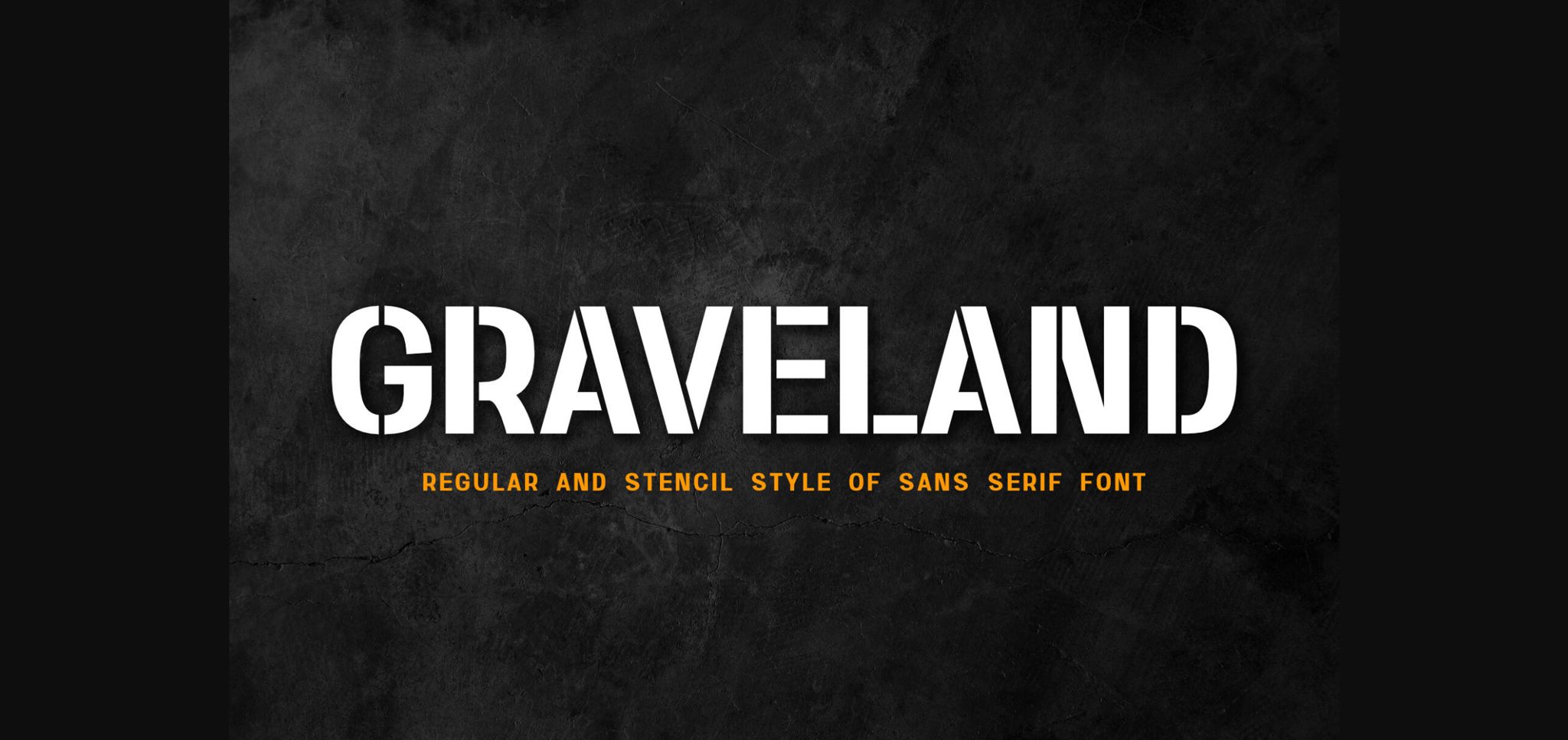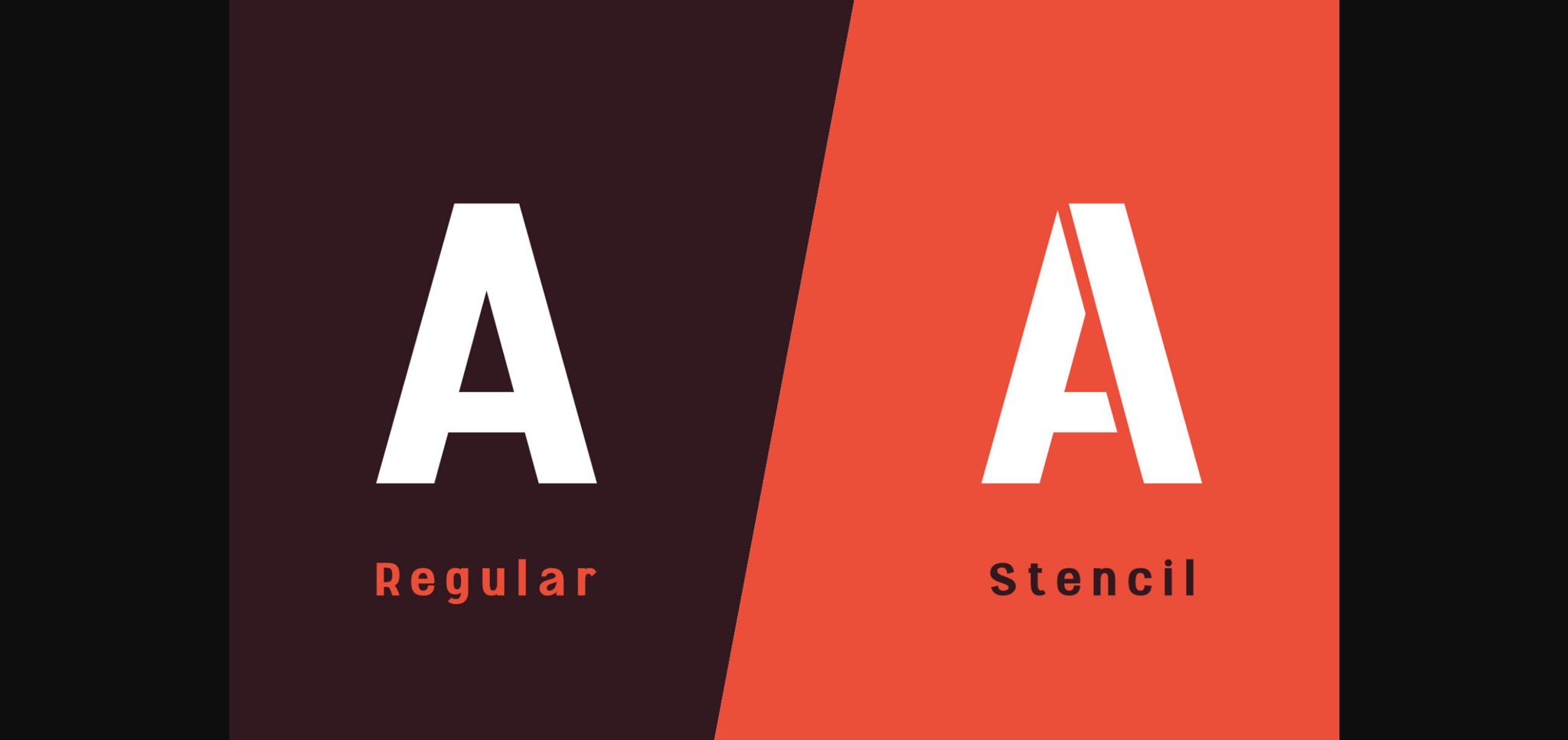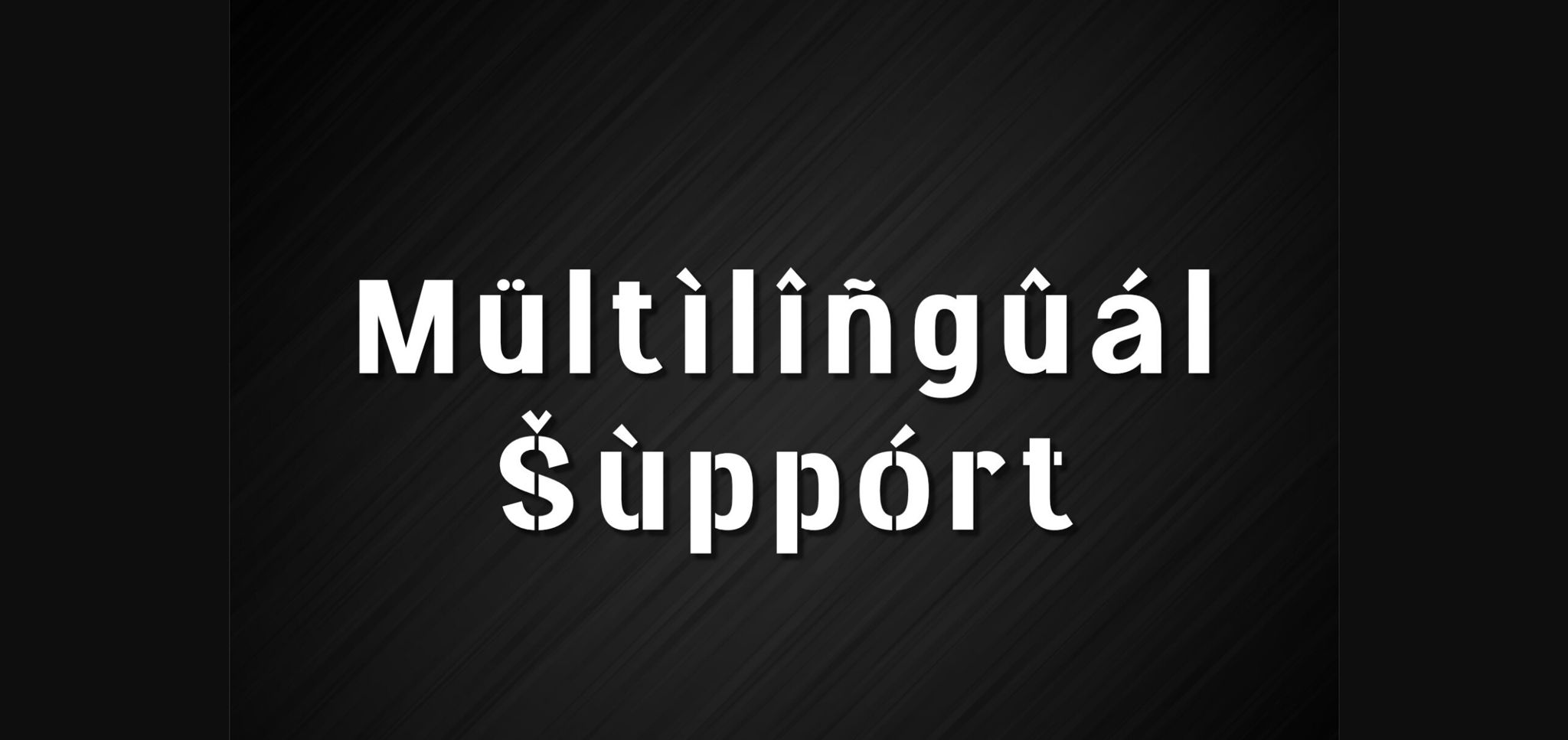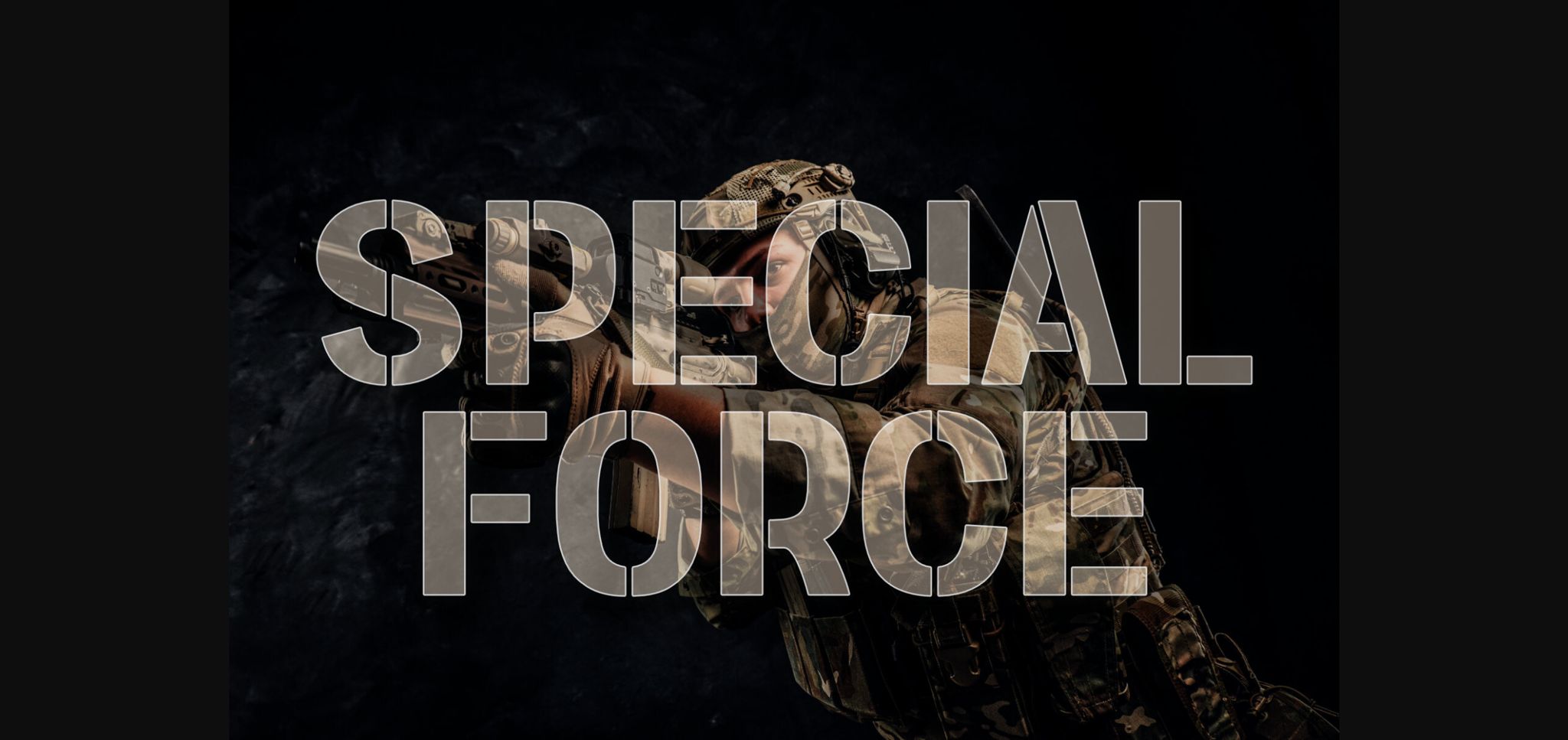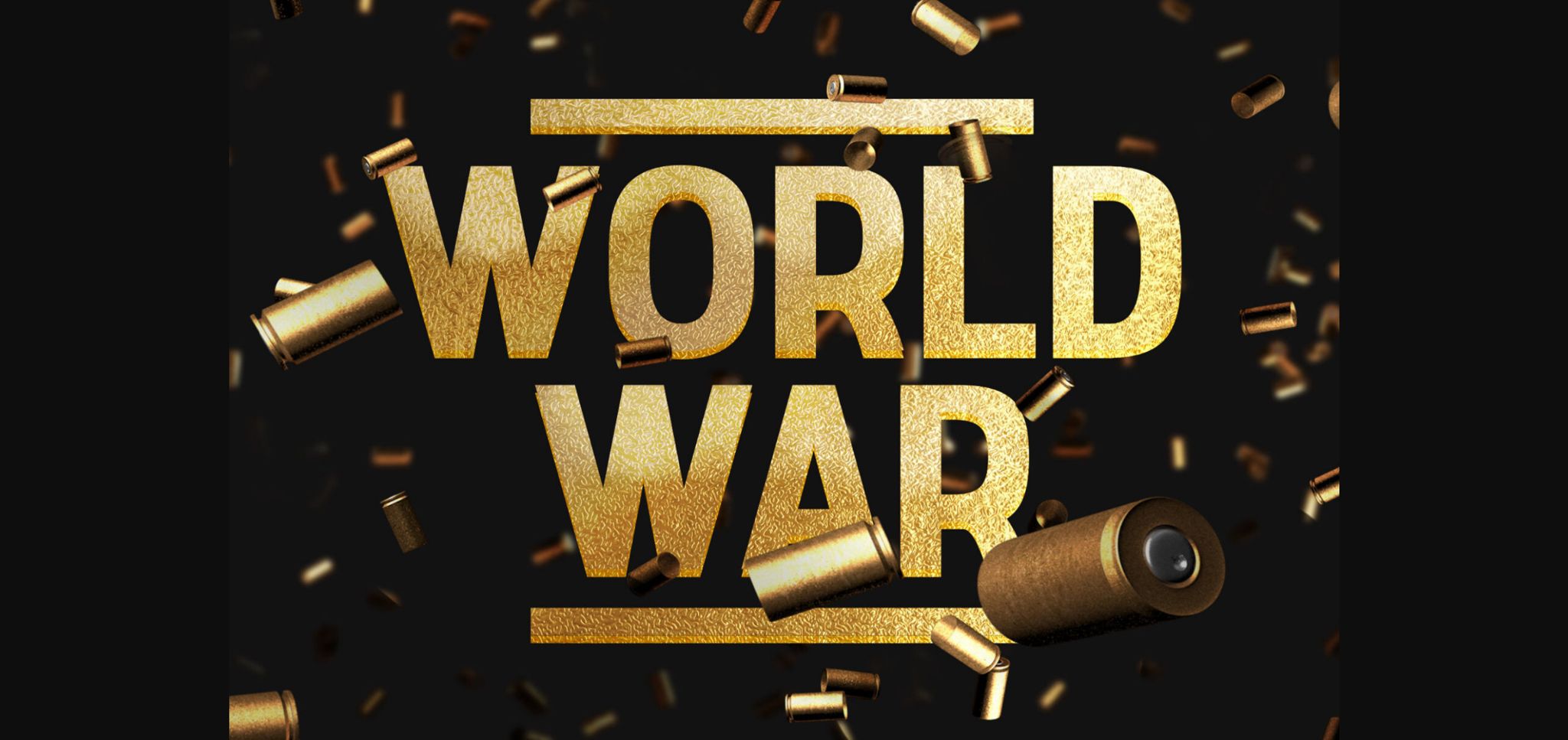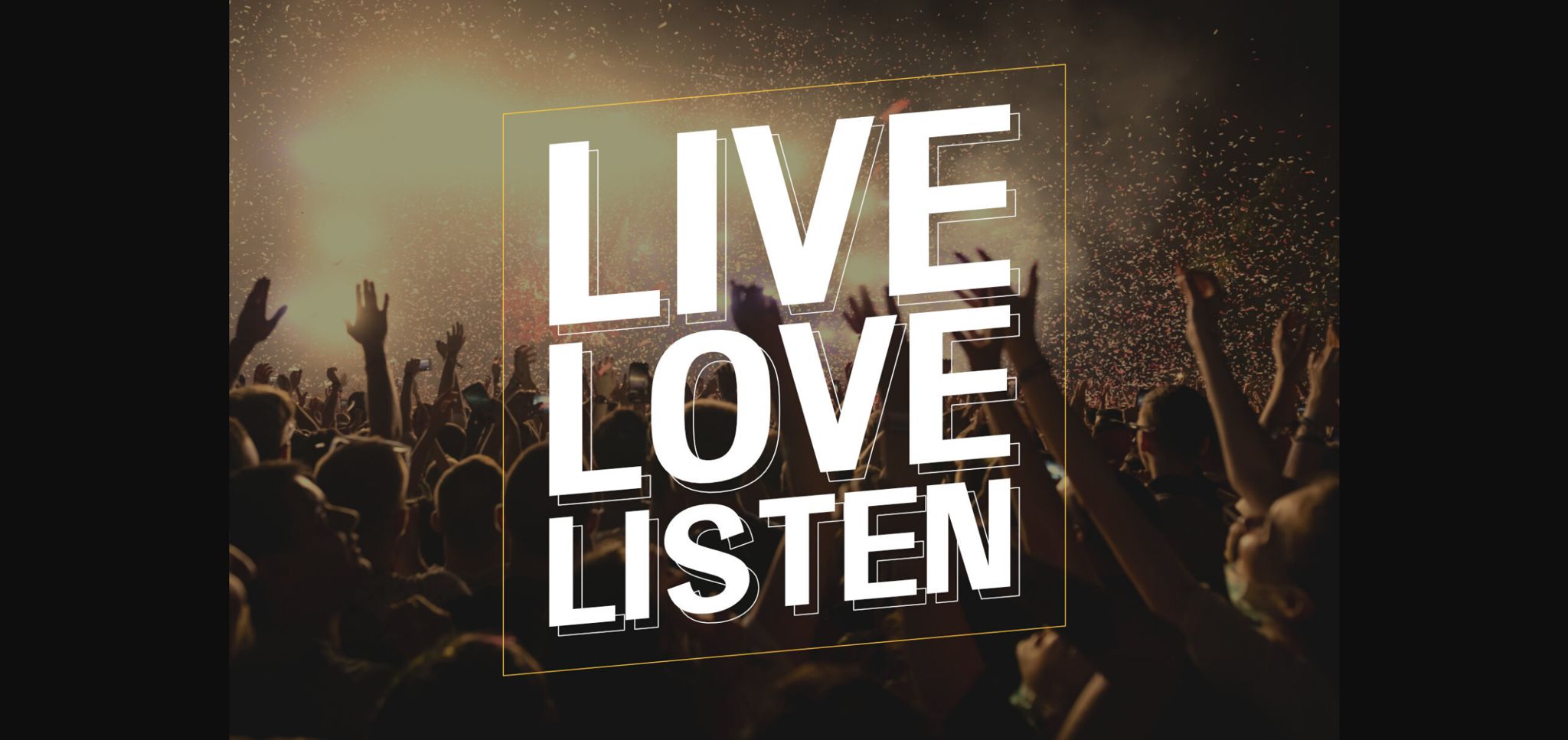
About Graveland Font
GRAVELAND is a simple sans-serif font that combines elegance and sportiness. It is perfect for t-shirt design, brand logo, corporate font, fashion branding, and more. GRAVELAND has a sleek and modern look that will make your designs stand out. Whether you need a font for a casual or formal project, GRAVELAND can deliver. Download GRAVELAND today and enjoy its versatility and style.